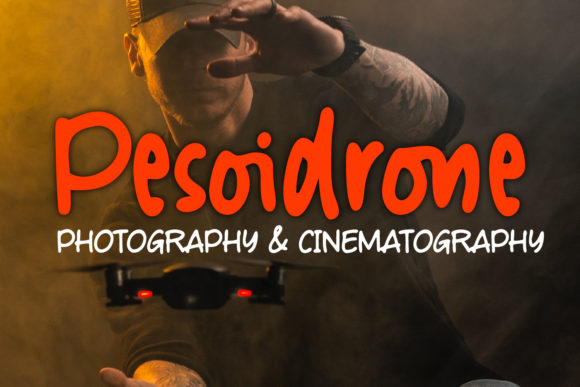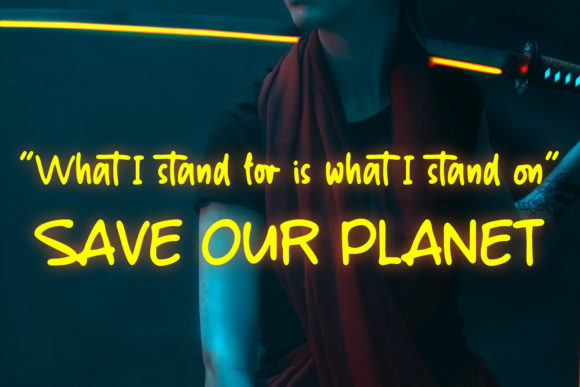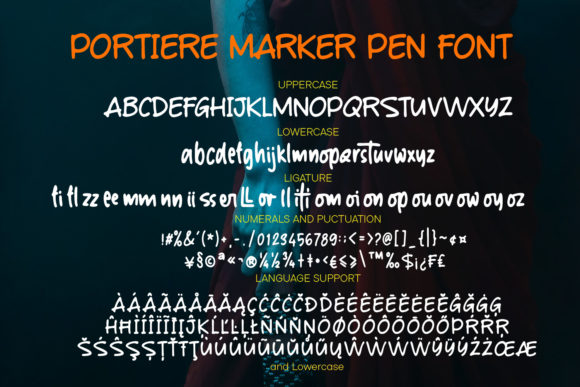
Introduction to Portiere Font
Have you ever been stuck on a creative project, unable to find the perfect font to bring your vision to life? That’s where Portiere Font comes in – a stylish, high-quality handwritten font that’s sure to elevate your design. Its friendly and neat aesthetic makes it the ideal choice for a variety of informal designs, from social media graphics to blog posts.
As a valuable resource for designers, Portiere Font offers a transparent background, allowing you to easily layer it with other elements in your design. With its free download option, you can experiment with this trendy font on your next creative project without breaking the bank. Whether you’re a seasoned pro or just starting out, Portiere Font is a must-have in your design arsenal.
Key Features of Portiere Font
- Includes multiple font styles and weights for versatility
- Features a transparent background, making it suitable for various design applications
- Unique characteristics: elegant, sophisticated, and modern design aesthetic
Honest Review: Portiere Font
I recently had the chance to work with Portiere Font for a creative project, and I’m excited to share my honest review with you. As a designer, I’m always on the lookout for high-quality design resources that can elevate my work, and Portiere Font definitely delivers.
What works well with Portiere Font is its unique, elegant design that’s perfect for a variety of projects, from fashion to beauty to luxury brands. I also appreciate that it comes with a transparent background, making it easy to customize and integrate into my designs.
- Unique and elegant design
- Perfect for fashion, beauty, and luxury brands
One limitation I noticed is that Portiere Font may not be suitable for projects that require a more modern or minimalist aesthetic. Additionally, some users may find the font a bit too ornate or over-the-top for certain design styles.
Overall, I’m impressed with Portiere Font and would definitely recommend it to designers looking for a high-quality, elegant font for their creative projects. While it may have some limitations, it’s a great resource to have in your design arsenal.
Portiere Font
Portiere Font is a high-quality design resource that can elevate your creative project to the next level. With a transparent background, this font is perfect for use in various design applications.
Portiere Font is ideal for use in various creative projects, including:
Tips for Getting the Most Out of Portiere Font
To get the most out of Portiere Font, be sure to:
- Use it in combination with high-quality images and graphics
- Pair it with a transparent background for a clean and modern look